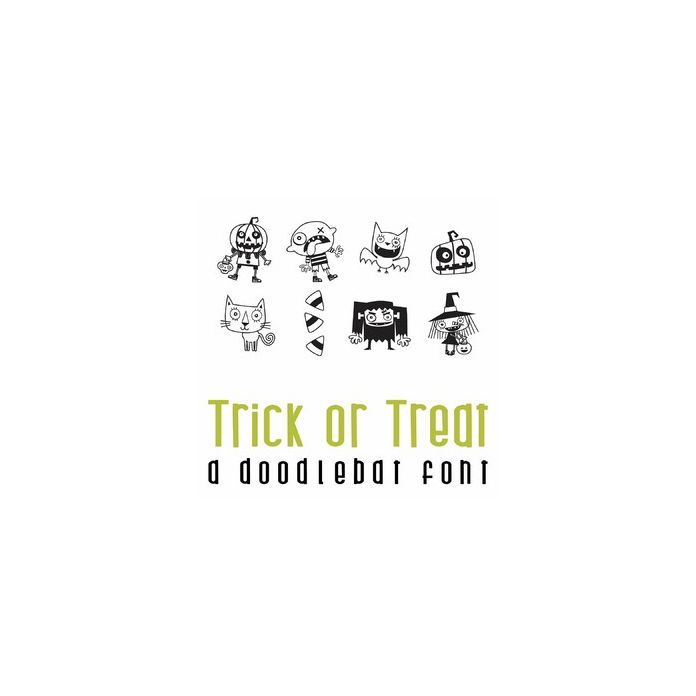
This fun doodlebat font features 26 funky monsters perfect for Halloween. Perfect for parties, cards, gifts, decor, crafts, scrap book pages, planner stickers and more!